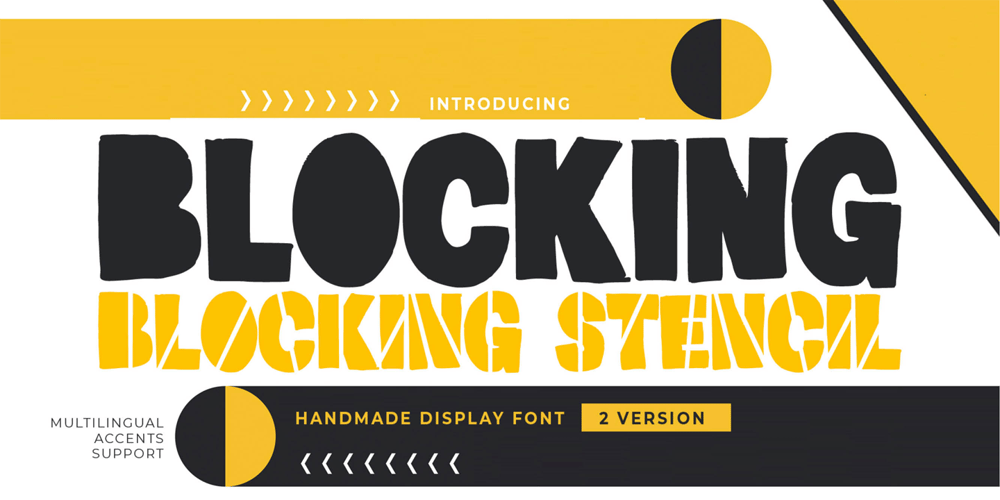
Blocking Font Family was designed by Abdul Malik Wisnu, Anang Fibriyanto and published by Gassstype. Blocking contains 1 styles and family package options. Introducing Blocking is a Handmade Display Font with a stylish touch inspired by the famous minimalist logo and Blocking has 2 Regular and Stencil styles is perfect for the purposes of designing templates, brochures, videos, advertising branding, logos and more.